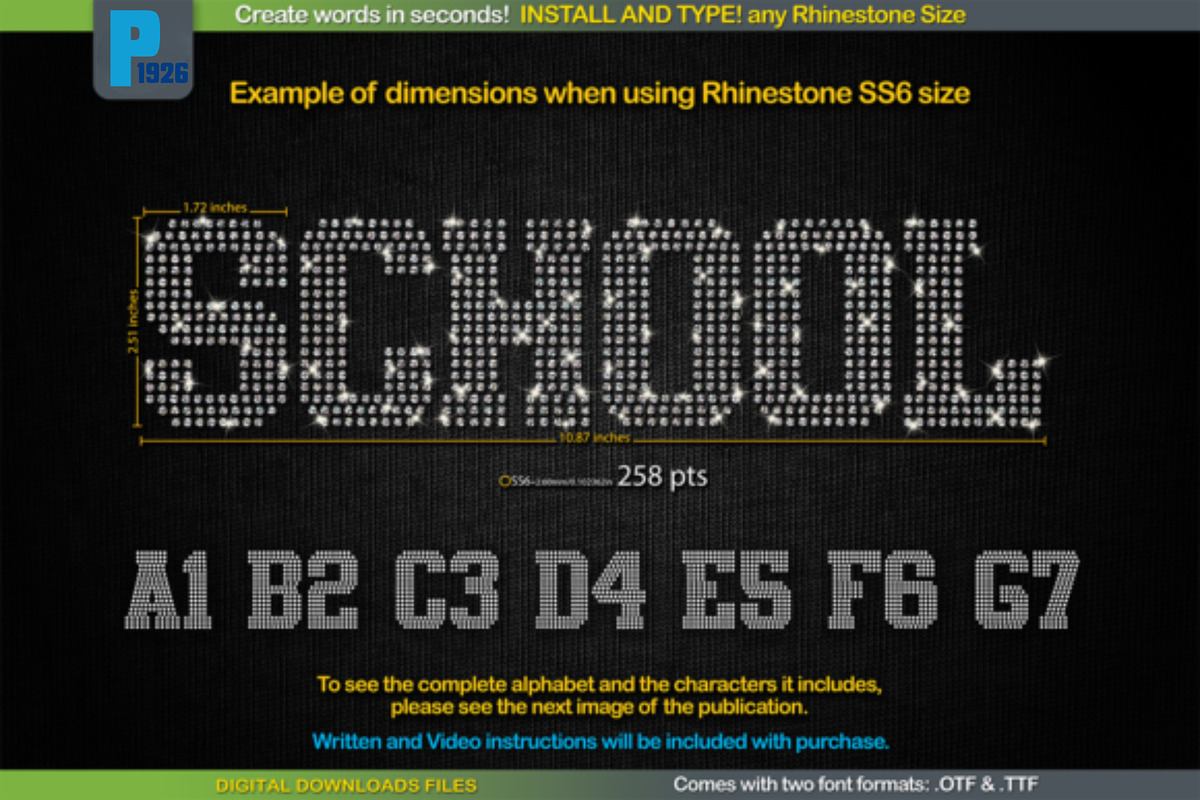
RS02 Atletico TTF RHINESTONE Font Free Download
RS02 Atletico TTF Rhinestone Font Free Download
RS02 Atletico TTF Rhinestone Font Free Download is a dazzling and bold typeface designed to add a touch of sparkle and glamour to your designs. Perfect for creating eye-catching logos, posters, fashion branding, and more, this rhinestone-inspired font brings a unique, sparkling effect to your creative projects. Its striking design is ideal for designs that need to stand out with a bold, stylish look.